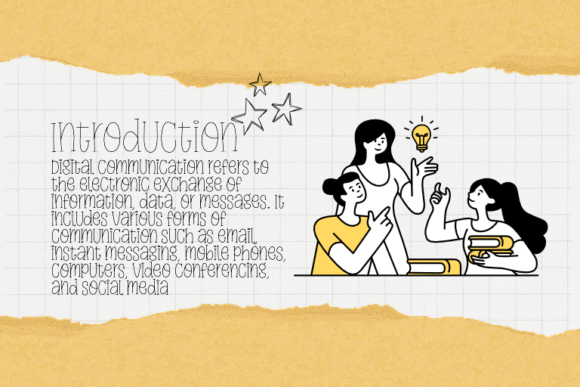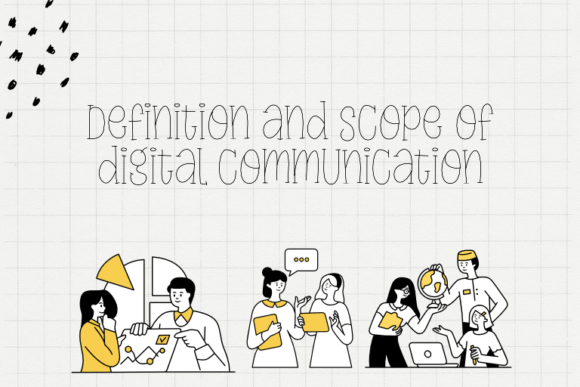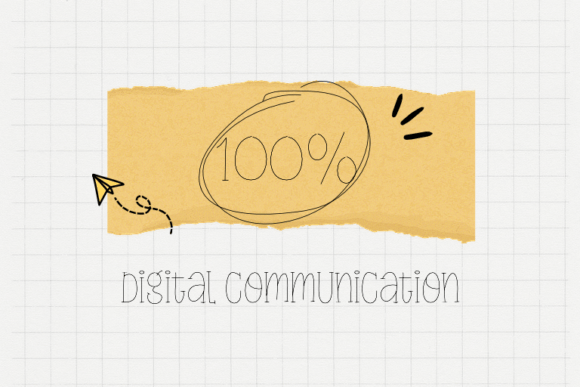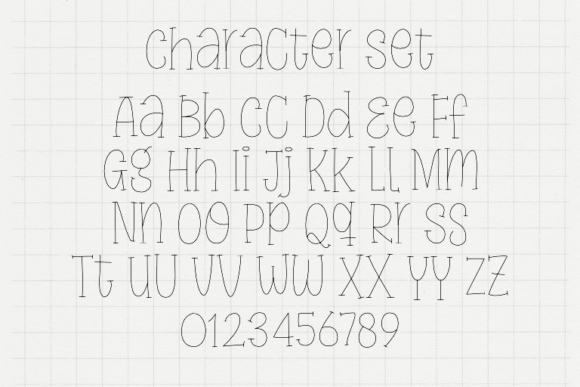
Introduction to Purely Digital Font
Do you remember the moment when you finally found the perfect font to complete your creative project? The one that made everything fall into place and your design shine? For many designers, that moment is a game-changer. It’s the difference between a good design and a great one. And that’s exactly what the Purely Digital Font can do for you.
As a valuable design resource, the Purely Digital Font offers a unique blend of cuteness and sophistication that’s perfect for adding a touch of sweetness to your designs. With its transparent background and high-quality design, this font is sure to make your projects stand out. Whether you’re working on a personal or professional project, the Purely Digital Font is an excellent choice for designers who want to elevate their creative work.
Purely Digital Font
- High-quality design resource with a transparent background, perfect for creative projects
- Includes 100+ glyphs, covering a wide range of languages and characters
- Resolution-independent design ensures crisp and clear display on any device or screen size
- Unique characteristic: Customizable, allowing users to adjust font weights, styles, and sizes to suit their creative vision
Honest Review: Purely Digital Font
I recently stumbled upon the Purely Digital Font, and I must say it’s been a game-changer for my creative projects. This high-quality font is a must-have in any designer’s toolkit.
- ✨ The transparent background makes it incredibly versatile, allowing me to seamlessly integrate it into any design.
- ✨ The font is incredibly detailed, with subtle nuances that add depth to any text.
Overall, I’m thoroughly impressed with the Purely Digital Font. It’s a valuable design resource that I’ll continue to use for all my creative projects. The high-quality design and transparent background make it a standout choice for any designer looking to elevate their work.
Tips for Getting the Most Out of Purely Digital Font
For the best results, use Purely Digital Font in conjunction with other high-quality design elements. Experiment with different font sizes, colors, and styles to create visually appealing designs. You can also use the font in combination with other design resources, such as images and graphics, to create a cohesive look.
Purely Digital Font is a versatile font that can be used in a variety of creative projects, including presentations, documents, and digital designs. It’s perfect for designers, marketers, and anyone looking to create high-quality designs with a professional look and feel.